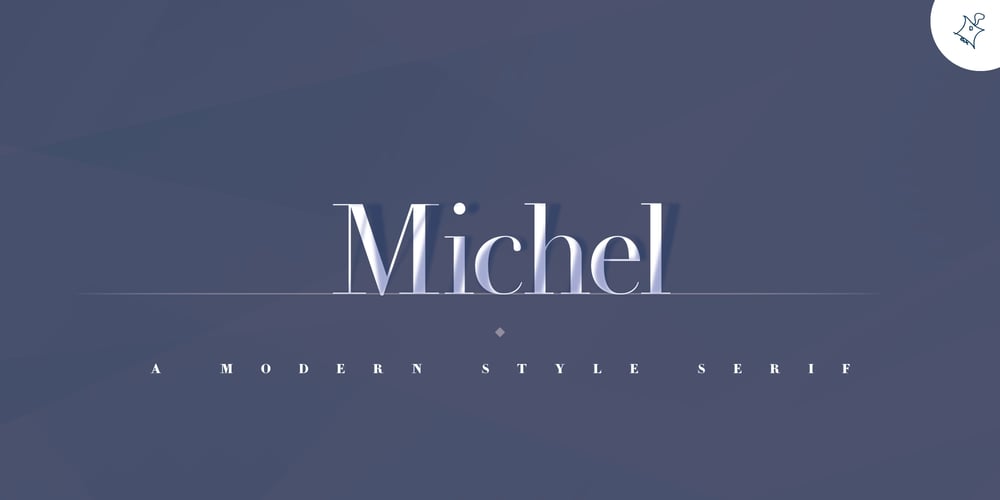
Michel Font Family was designed by Shuji Kikuchi and published by sugargliderz. Michel contains 6 styles and family package options. The design of this typeface was influenced by the typefaces left by Firmin-Didot. There are three weights, and all weights can be used in large font sizes to create a gorgeous and attractive impression.